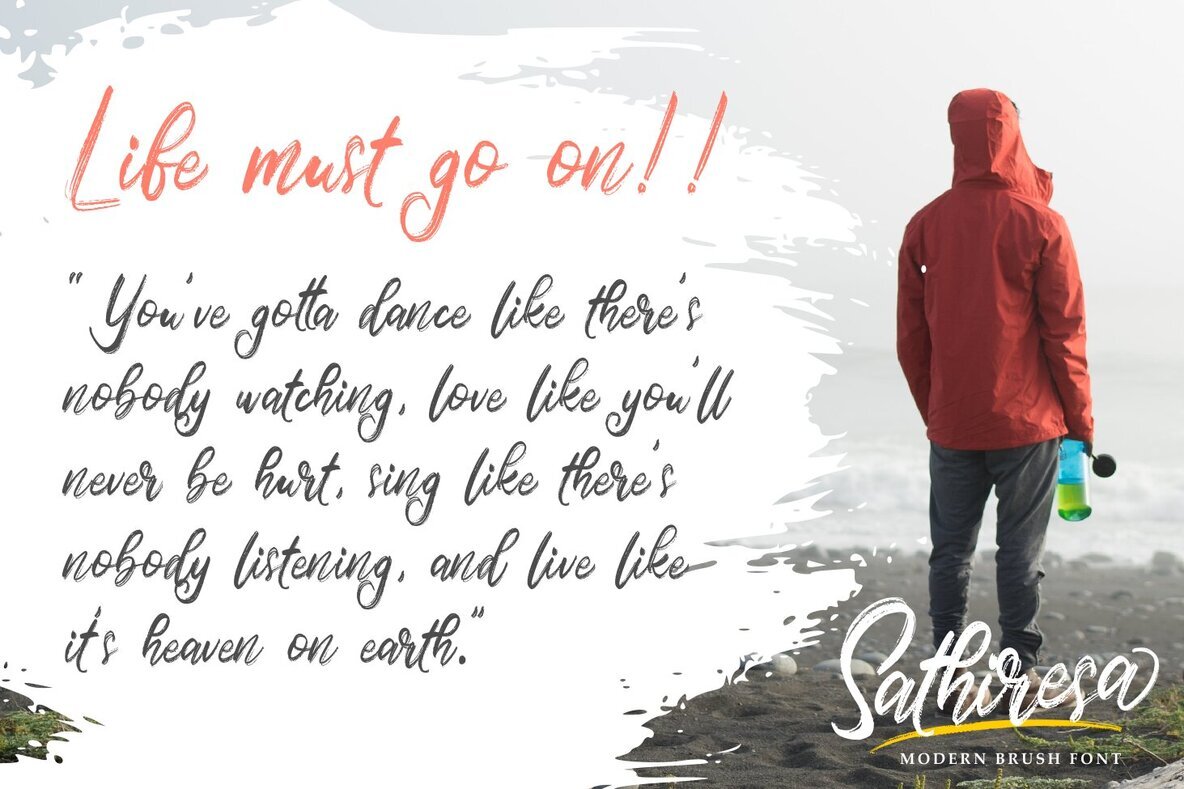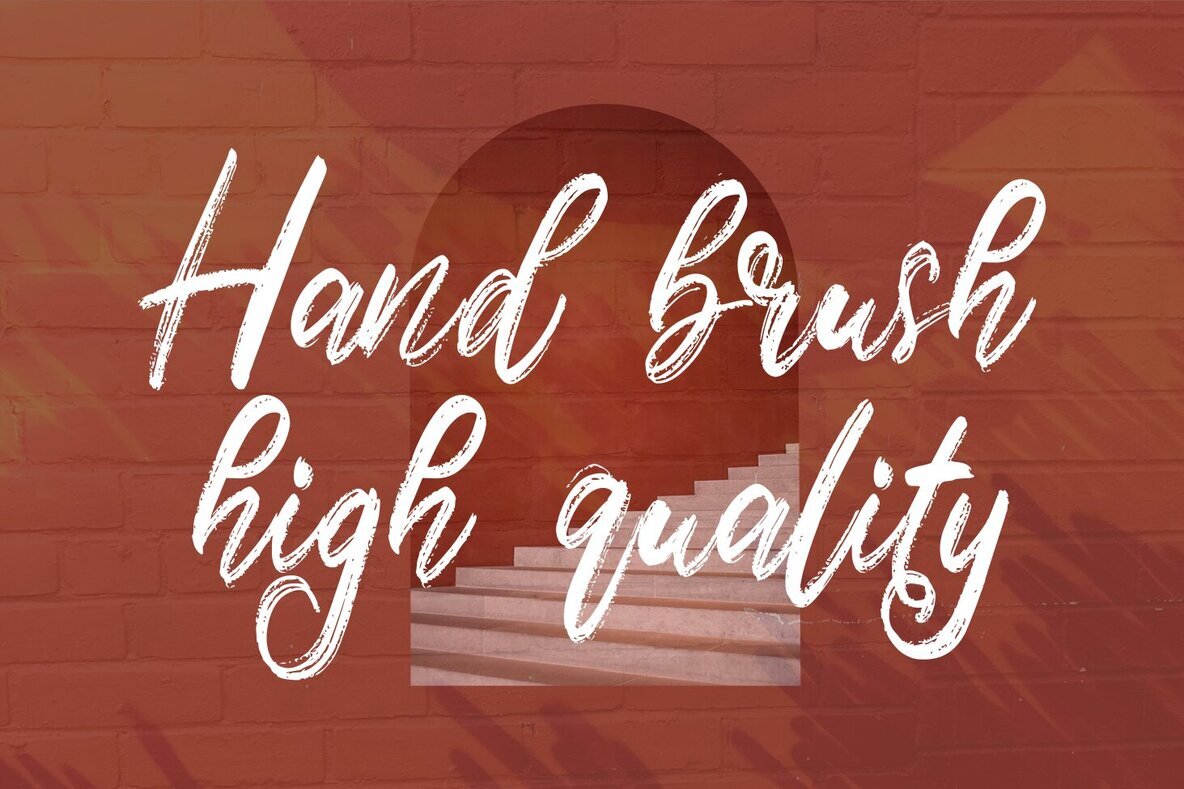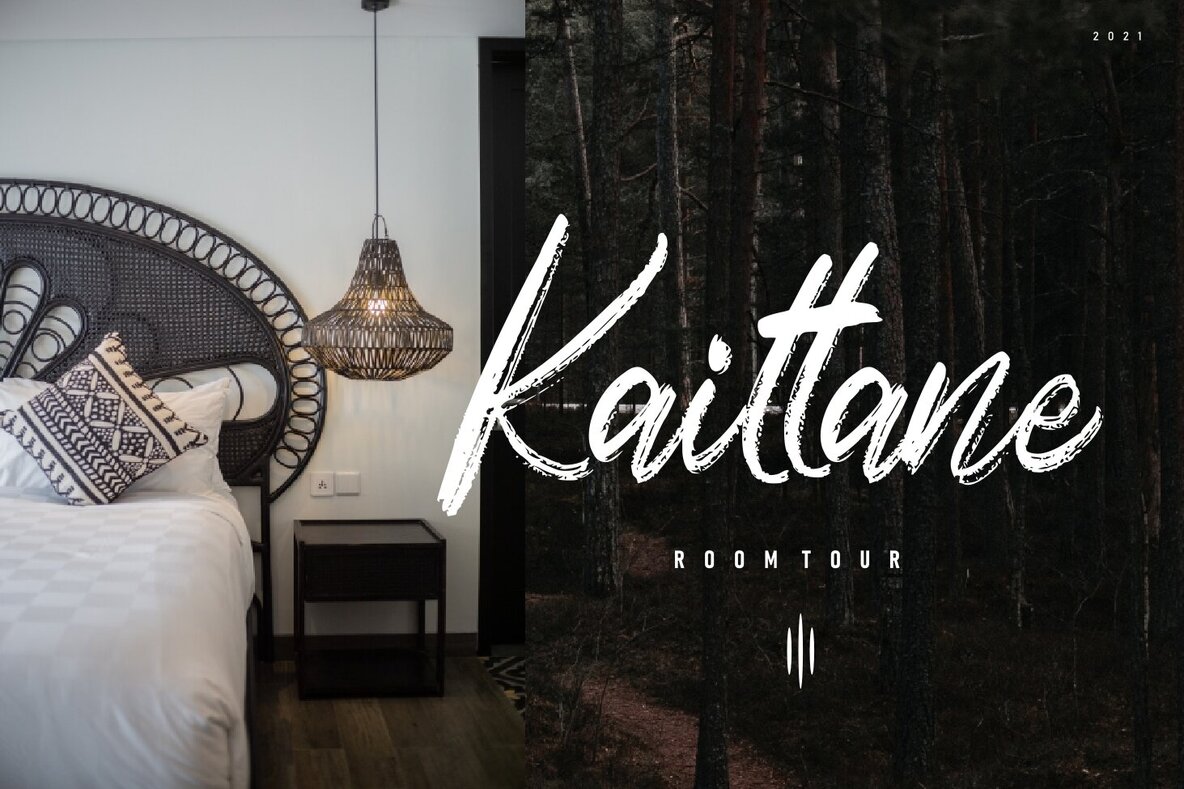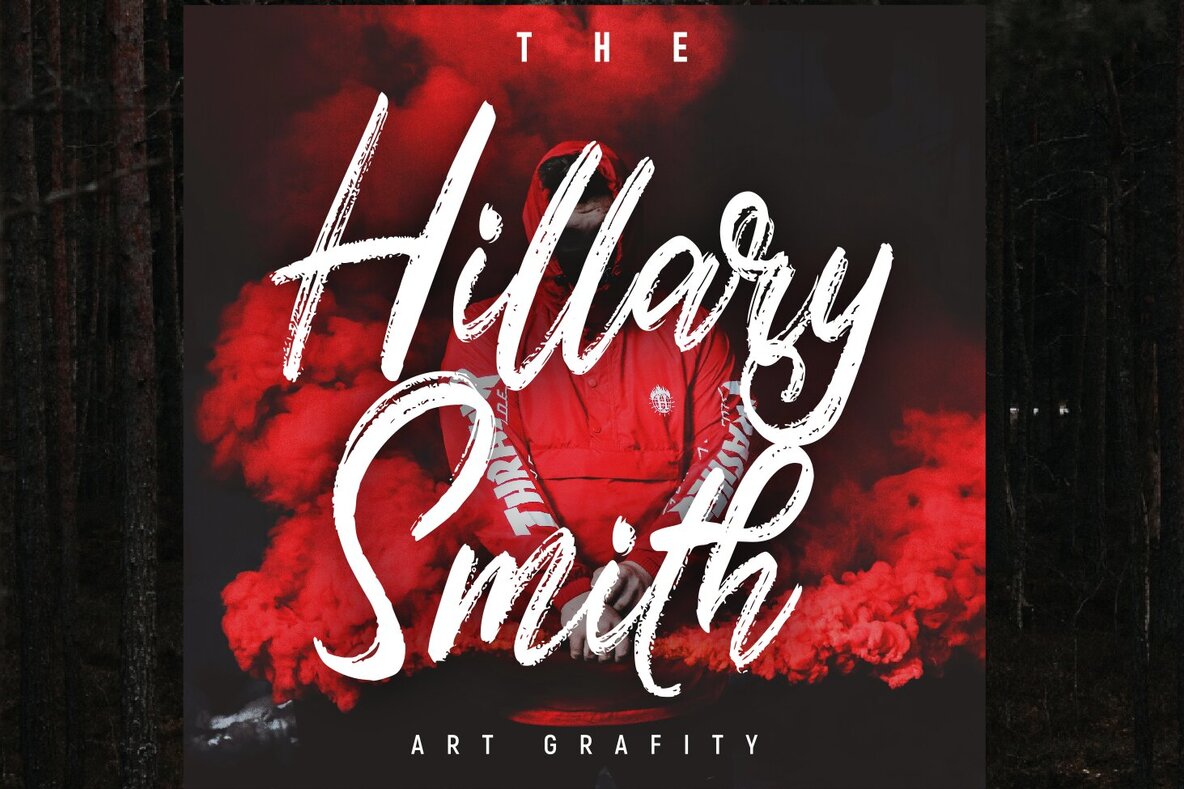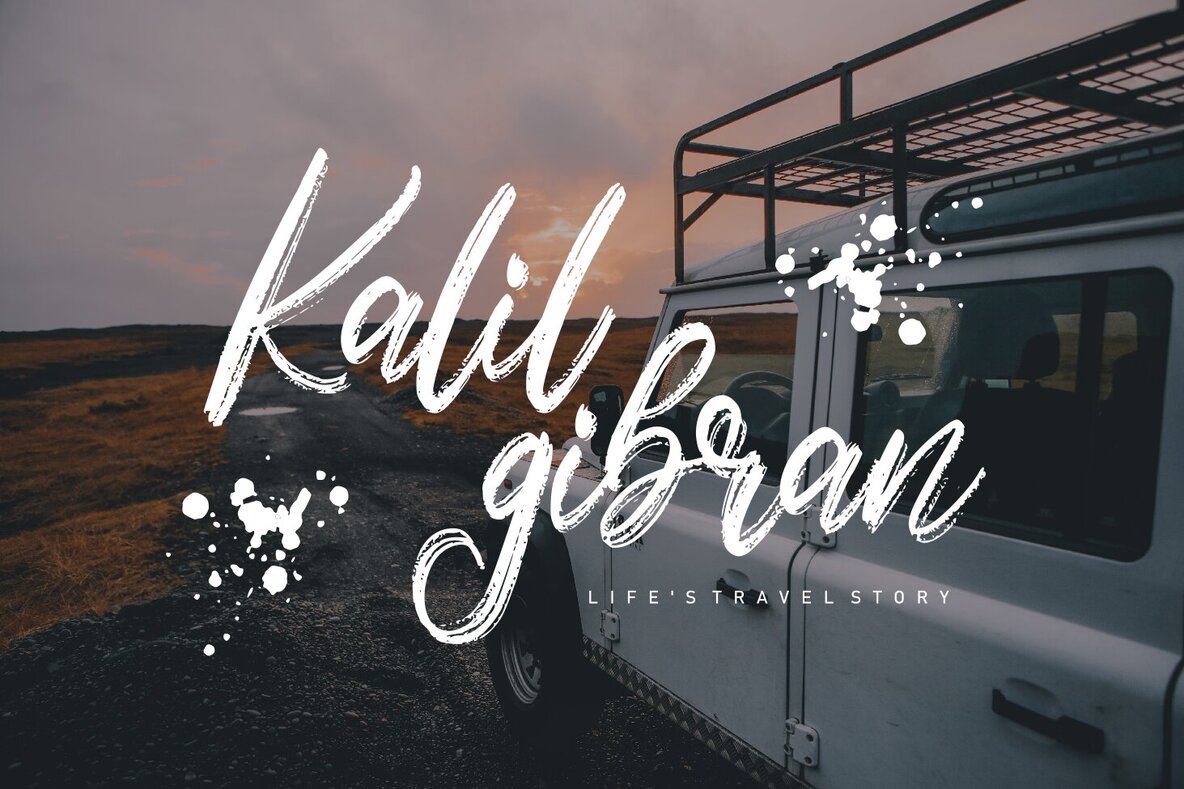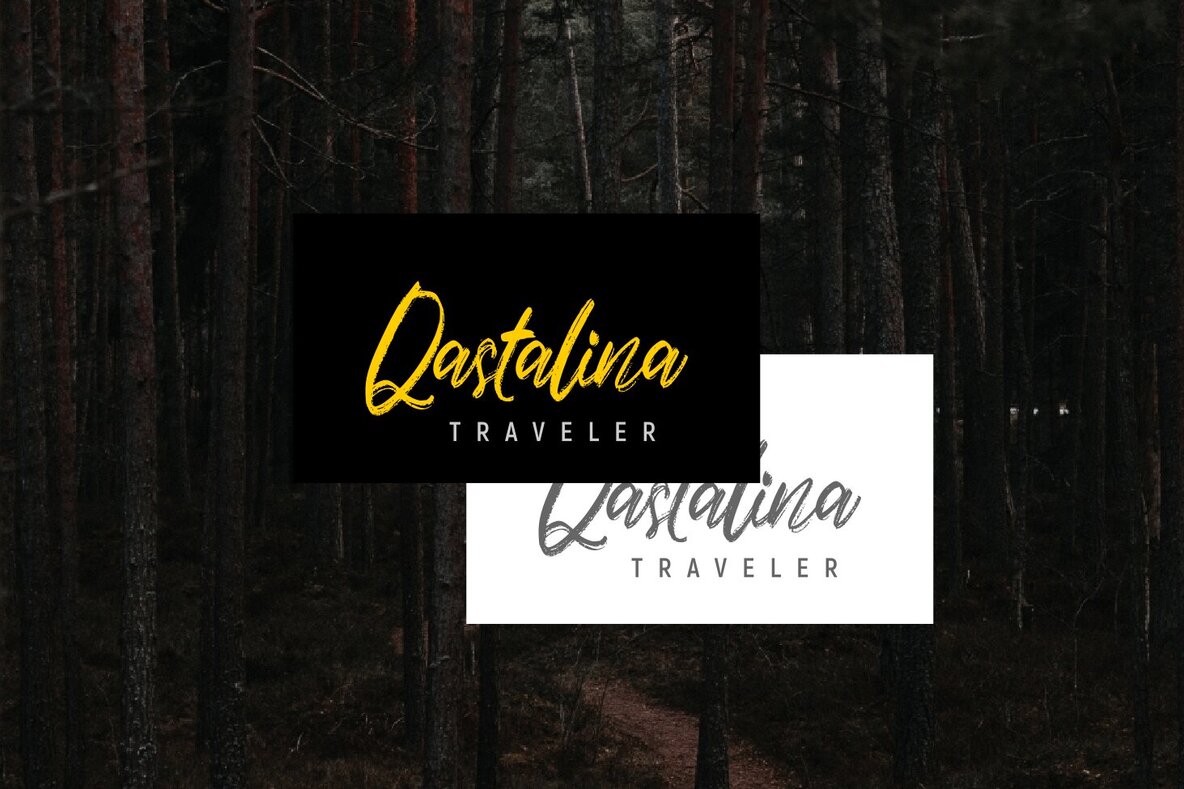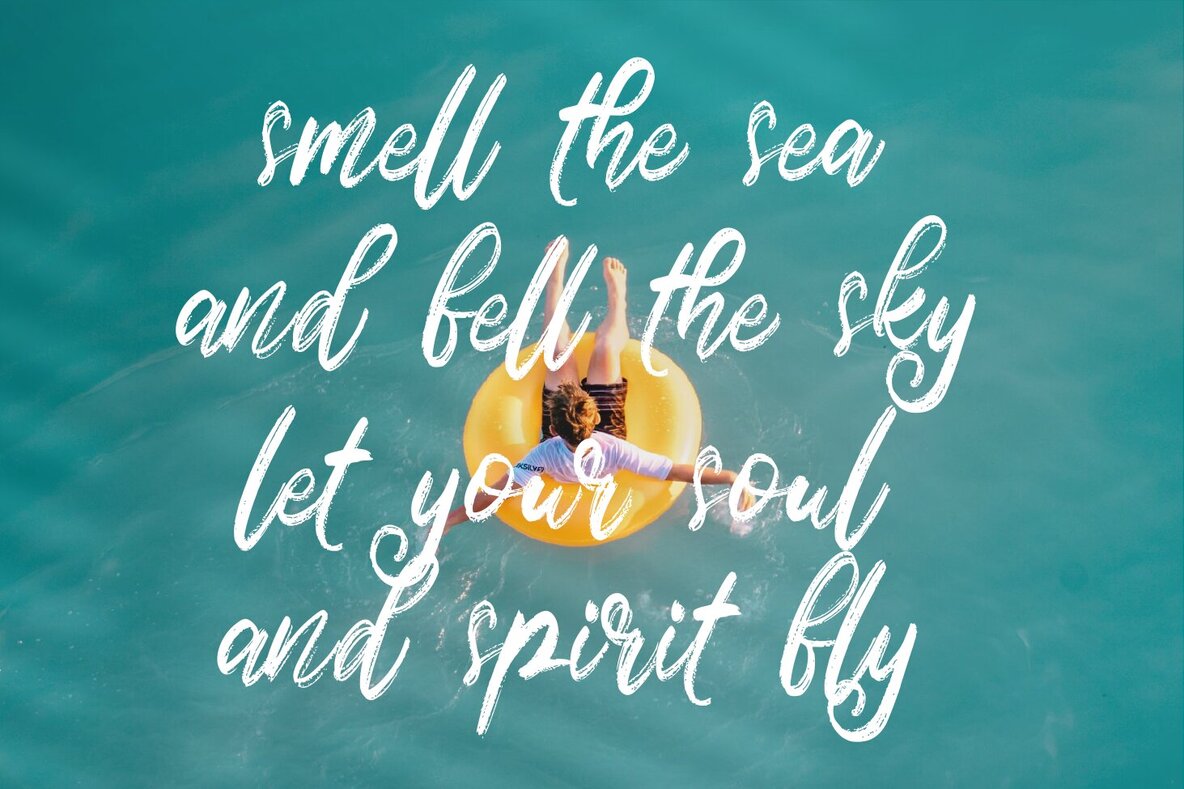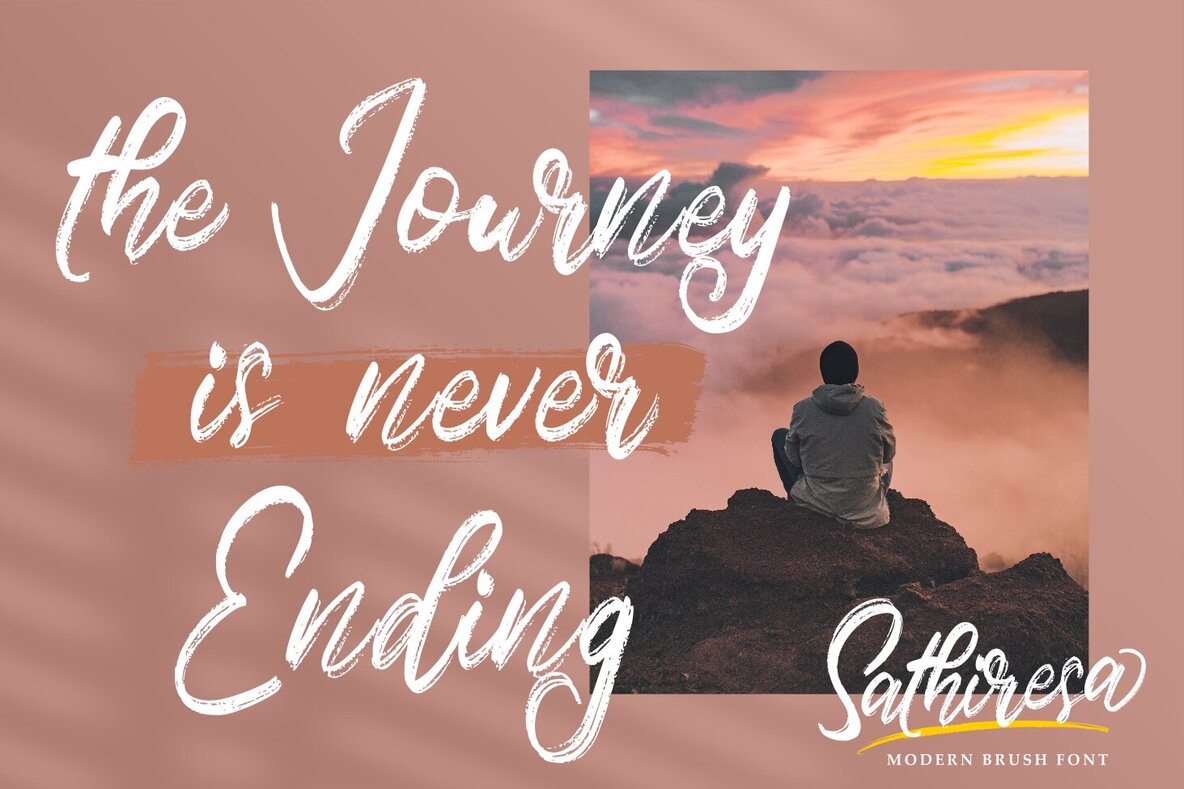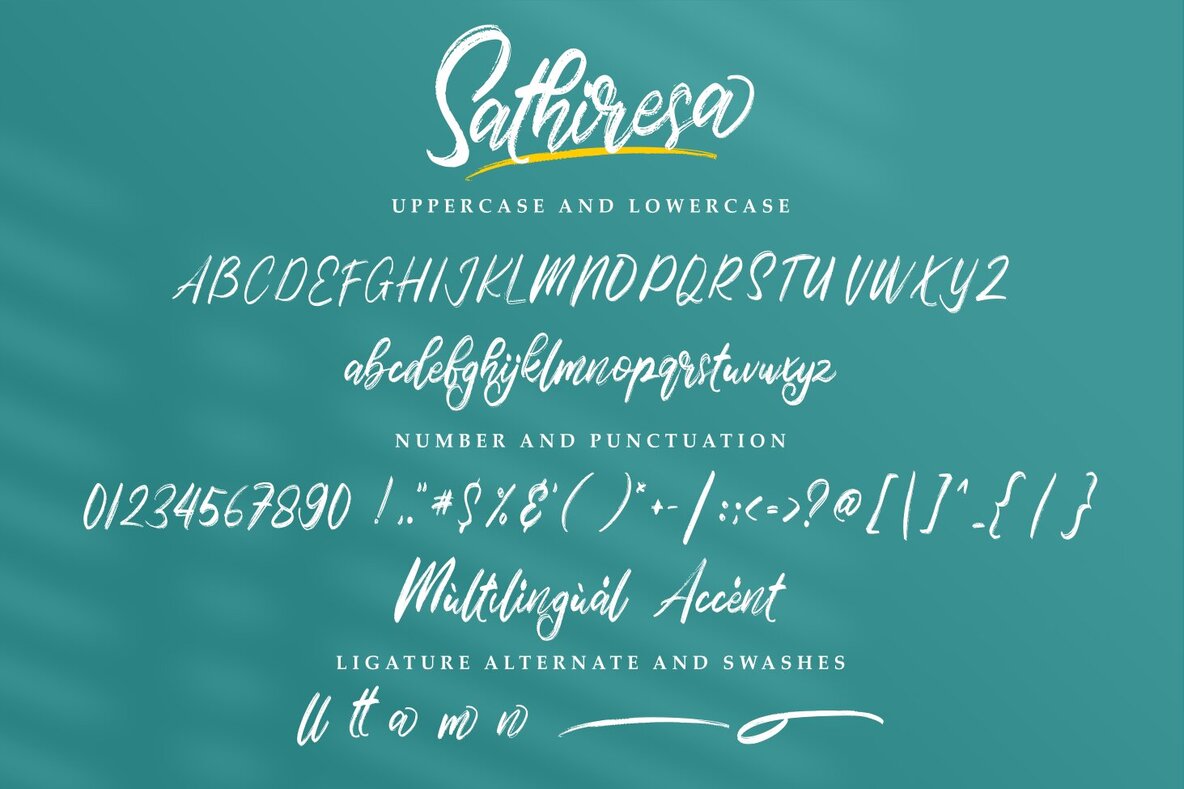
Sathiresa Font
Sathiresa Regular
Sathiresa, crafted by Zeenesia Studio, is a splendid script font that embodies elegance and charm. With its cursive style and modern appearance, it is the perfect fit for a wide range of creative projects.Sathiresa: A Timelessly Elegant Script Font